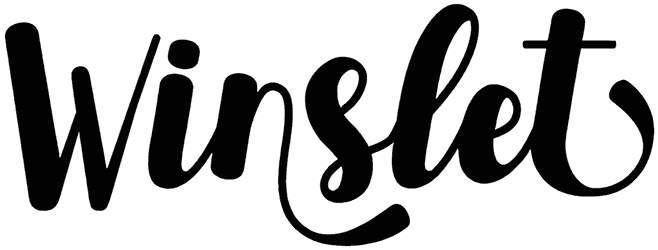
Winslet Font
Winslet is a script font that is perfectly fit for a wide set of graphic content ranging from greeting cards, gift cards, posters, logos, and product packaging that require a personalized touch. If creating a sense of softness, delicacy, dynamism, and innovation really matters to you, Winslet would be ideal, so pick up this font without thinking about the lack of numbers.